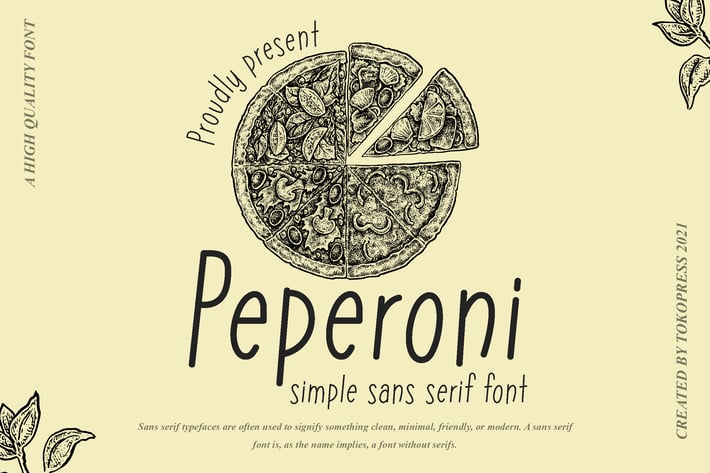
Peperoni - Handwritten Cute font
Peperoni- Cute Handwriting font
Peperoni is a handwritten sans display font with a touch of natural softness and human charm. Designed with low contrast, clean terminals, and a subtle irregular baseline, it captures the essence of handwritten simplicity while maintaining a light, minimalist structure. Its vibe is calm and organic—perfect for earthy brands, lifestyle packaging, or editorial titles that crave authenticity.
Whether you’re designing for wellness, skincare, artisan food, or boutique clothing, Peperoni brings a friendly, approachable voice to your visual identity.
Peperoni is made for modern creatives, indie makers, and gentle storytellers who want a font that whispers, not shouts. With its softly structured letters and warm handwritten character, it feels right at home in branding, social media posts, eco-friendly packaging, or even journal covers. It's the kind of font that makes your design feel personal and intentional, with a subtle edge of sophistication.
From tagline logos to inspirational quotes and product labels—Peperoni invites connection.
Key Features :
Natural Handwritten Charm
- Light and relaxed strokes with a cozy handwritten vibe
- Ideal for journals, greeting cards, and natural brand packaging
Minimalist Yet Expressive
- Subtle bounce with gentle flow
- Reads clean at small and medium sizes
* Branding-Ready Design
- Versatile use for organic skincare, handmade goods, sustainable brands, and storytelling visuals